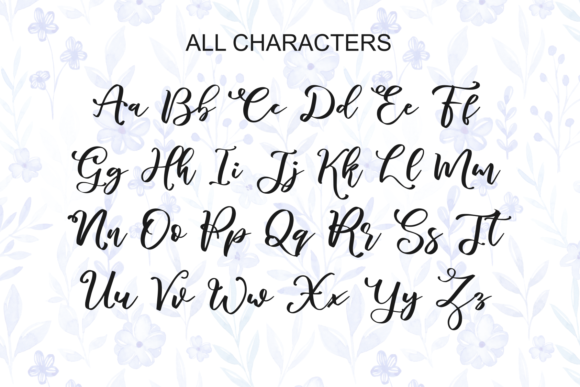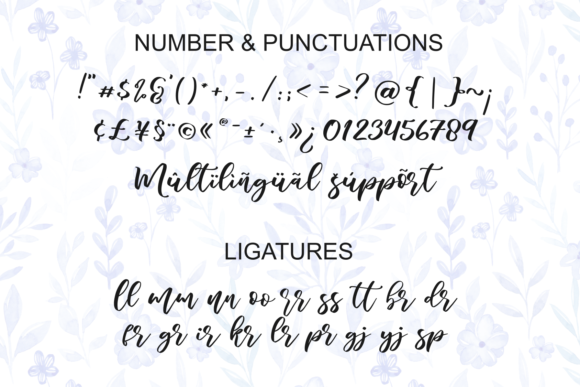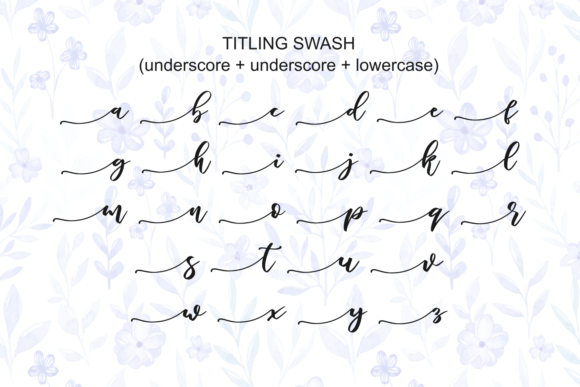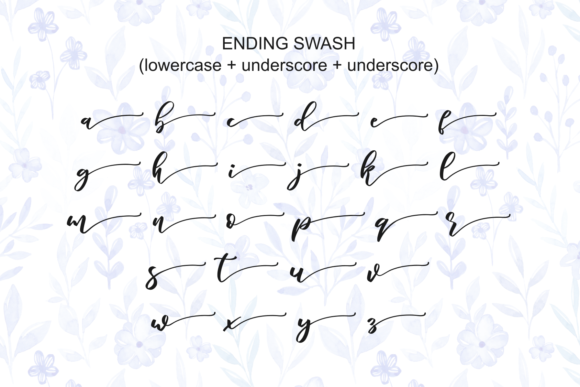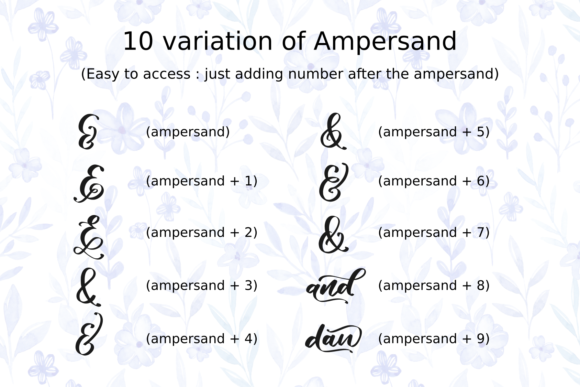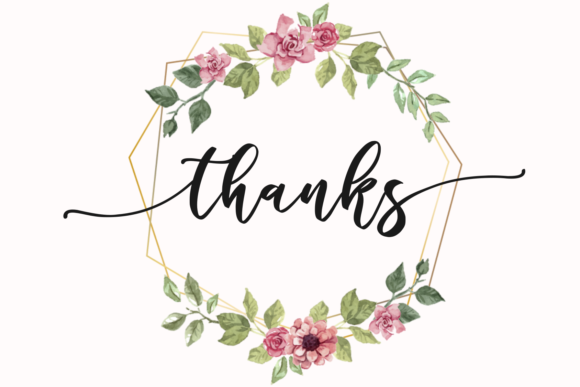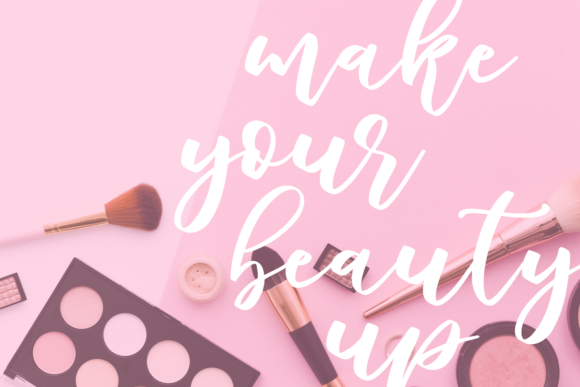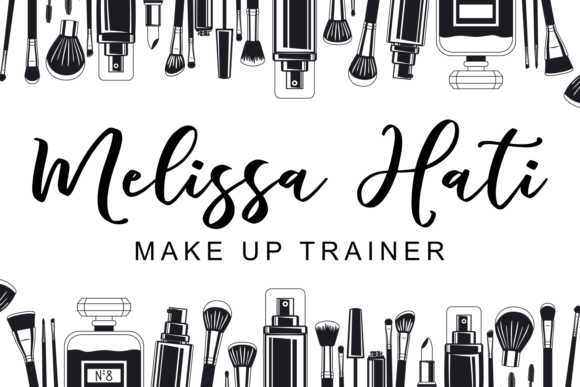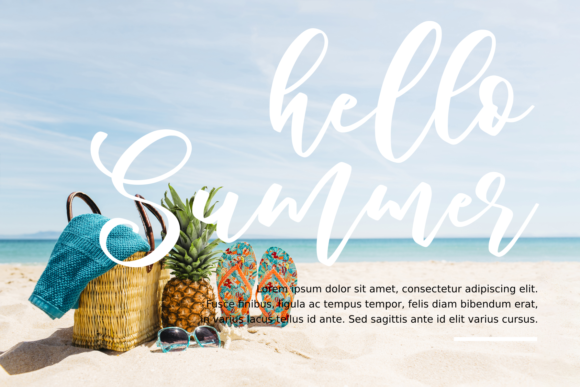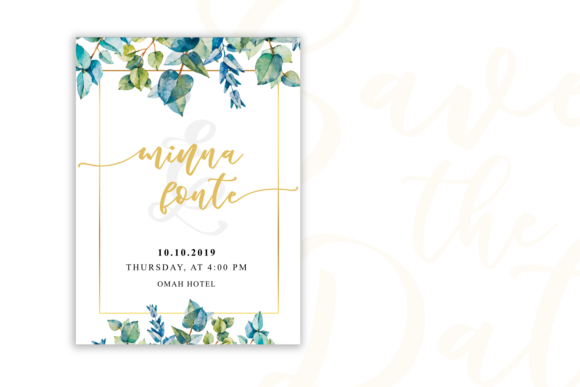
HomeScript FontsMarlita Font Script Fonts Marlita Font FacebookXPinterestWhatsApp Marlita Font Poster 2 Marlita Font Poster 3 Marlita Font Poster 4 Marlita Font Poster 5 Marlita Font Poster 6 Marlita Font Poster 7 Marlita Font Poster 8 Marlita Font Poster 9 Marlita Font Poster 10 Marlita Font Poster 11 Marlita Font Poster 12 Marlita Font Poster 13 Marlita Font Poster 14 Marlita Font Poster 15 About Marlita Font Marlita is a one-of-a-kind crafting font that will transform any creative idea into a standout! DOWNLOAD ON CREATIVE FABRICAThis font is sold and delivered by Creative Fabrica. Font Canyon may earn a commission if you buy through this link. People also explored Head Turn Averta Standard Balgena Font Samanthan Font Mango Gellato Quantums Font Kalyee Font Nextart Bold Font Faletina Font 292 0 TagsMarlita Font Previous articleMistletoes FontNext articleBrillante Luna Piena Font LEAVE A REPLY Cancel reply Comment: Please enter your comment! Name:* Please enter your name here Email:* You have entered an incorrect email address! Please enter your email address here Website: Save my name, email, and website in this browser for the next time I comment. Personal Use Free Reztop Personal Use Free Read more about this font Sheiloria Personal Use Free Read more about this font Wallabys Junior Personal Use Free Read more about this font Kids Toys Personal Use Free Read more about this font BLOG Free vs Paid Fonts: Why Investing in Premium Fonts Is Worth It Free vs Paid Fonts: Why Premium Fonts Are Worth It in 2025 The debate of free vs paid fonts continues in the design world. While... Best Fonts for T-Shirt Design – Top 2025 Picks Best Fonts for YouTube Videos: Make Your Thumbnails Stand Out Free Fonts Risk: Why Free Fonts Can Be Dangerous for Designers